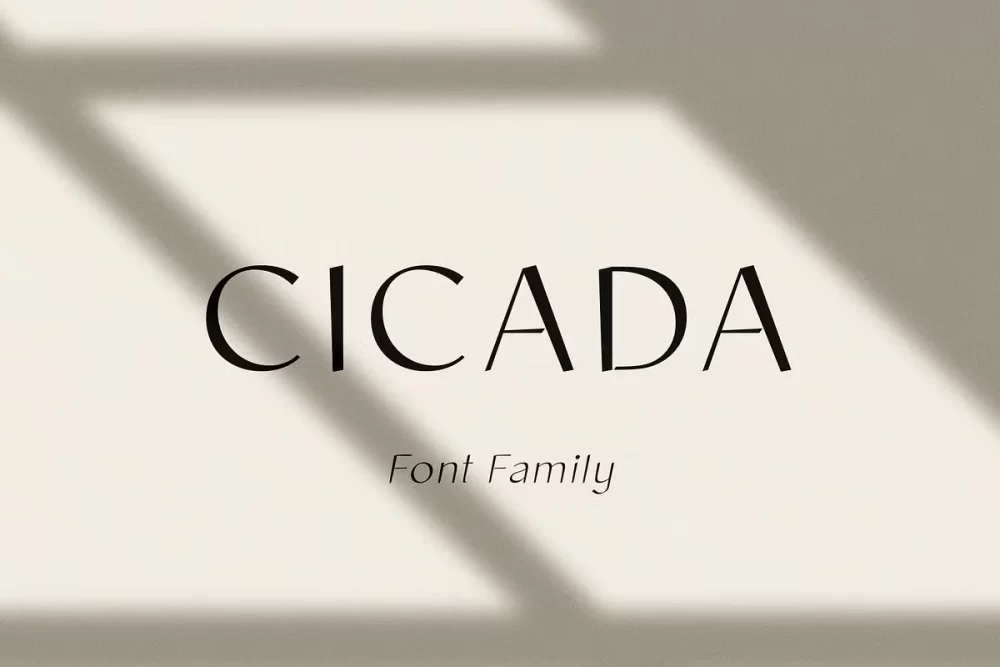
Cicada is an elegant and modern sans-serif font family. It includes the upright and Italic styles, each of which has five weights from Extra light to bold.
This is a multi-purpose font that is perfect for any project, it is contrasted, modern and easy to read. With it, you can create logos, use it in advertising, packaging, book covers and magazines, headings, descriptions and much more.
- Full alphabet with Uppercase and Lowercase A-z
- Numbers, fractions
- Punctuation and symbols
- Alternates for uppercase “E, K, R”
- Alternates for lowercase “a, g, y”
- Multilingual support